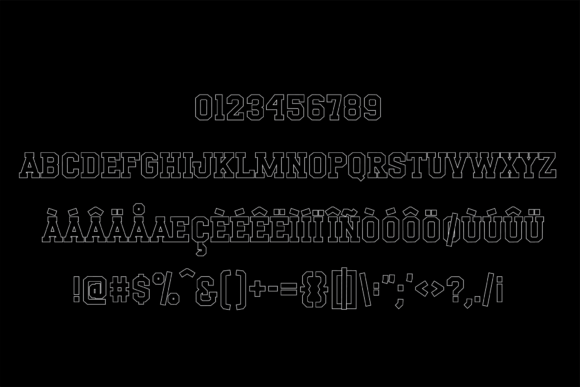
Introducing the Elite Font: Elevate Your Sports Team’s Brand with Style and Sophistication
When it comes to creating a logo for sports teams and athletic events, the right font can make all the difference. You want a font that exudes confidence, professionalism, and a touch of boldness. That’s where the Elite font comes in – a game-changing typography solution that’s specifically designed to help your team stand out from the competition.
The Elite Font: A Perfect Blend of Style and Functionality
The Elite font is ideal for sports teams and athletic events. With its thin outline and classic style, it adds a bold and professional touch to any logo, making sure your message stands out. The font’s sleek and modern design ensures that it looks great on various mediums, from team jerseys and merchandise to social media and website headers.
Why Choose the Elite Font?
So, what makes the Elite font a top choice for sports teams and athletic events? Here are just a few reasons why designers and crafters love working with this versatile typography:
- Professional Look and Feel: The Elite font boasts a sophisticated and polished design that’s perfect for teams that want to project a professional image.
- Highly Versatile: Whether you’re designing a logo for a basketball team, a soccer club, or a marathon event, the Elite font adapts seamlessly to different styles and themes.
- Easy to Read: The font’s clear and legible design ensures that your message gets across quickly and effectively, even from a distance.
- Customizable: The Elite font can be easily customized to fit your team’s unique brand identity, allowing you to experiment with different colors, sizes, and styles.
Design Tips: Getting the Most Out of the Elite Font
To make the most of the Elite font, here are some design tips to keep in mind:
- Pair it with Bold Colors: The Elite font looks great when paired with bold, vibrant colors that reflect your team’s personality and spirit.
- Experiment with Textures: Adding textures and subtle gradients can give your logo a unique, eye-catching effect that sets it apart from the competition.
- Keep it Simple: Don’t be afraid to keep your design simple and clean. The Elite font’s classic style works best when it’s not cluttered with too many elements.
Who Can Benefit from the Elite Font?
The Elite font is perfect for a wide range of sports teams and athletic events, including:
- Sports teams (basketball, soccer, football, baseball, etc.)
- Athletic events (marathons, triathlons, cycling events, etc.)
- Fitness studios and gyms
- Outdoor and adventure teams
- Esports teams
In conclusion, the Elite font is a top-notch typography solution that’s specifically designed to help sports teams and athletic events stand out from the competition. Its thin outline, classic style, and bold design make it the perfect choice for teams that want to project a professional image. Whether you’re a designer or a crafter, the Elite font is an excellent addition to your toolkit.